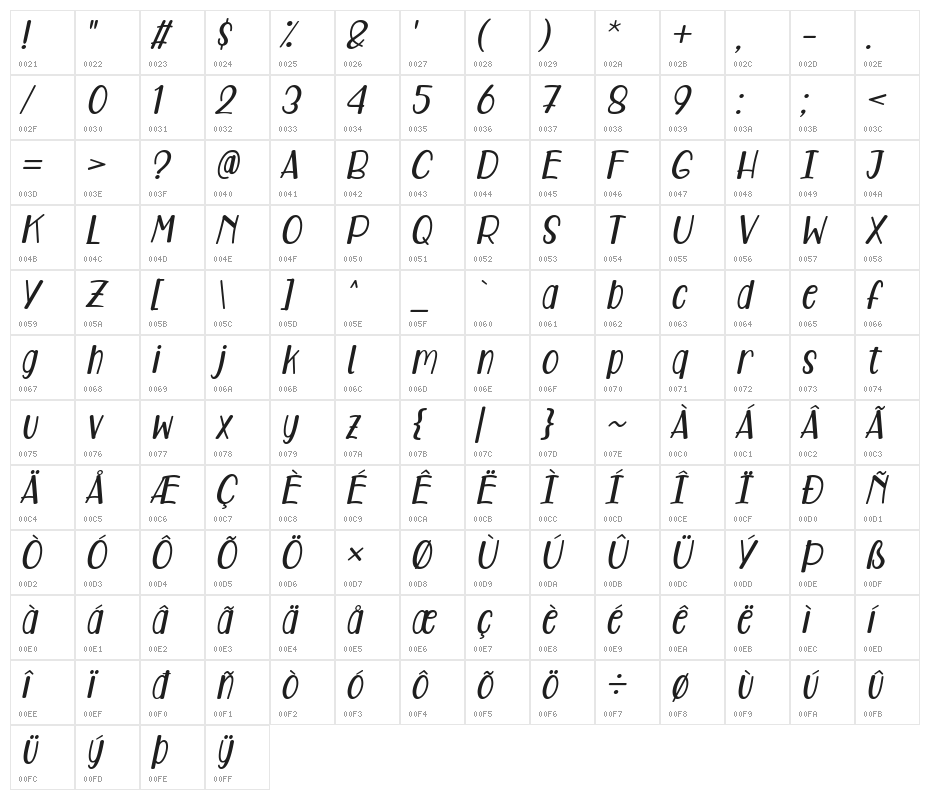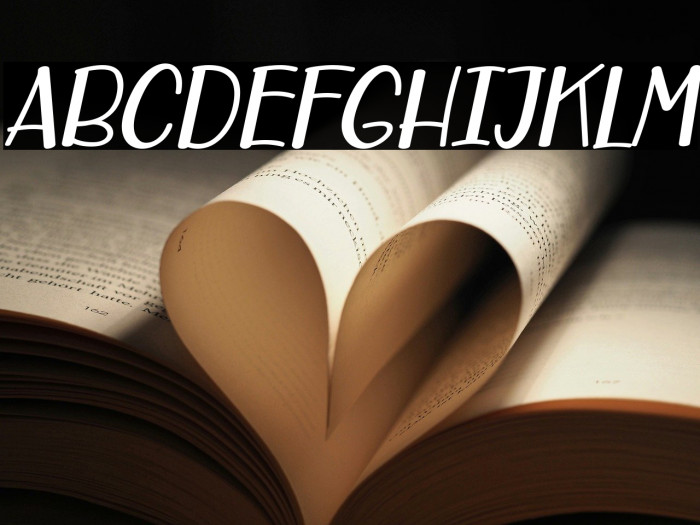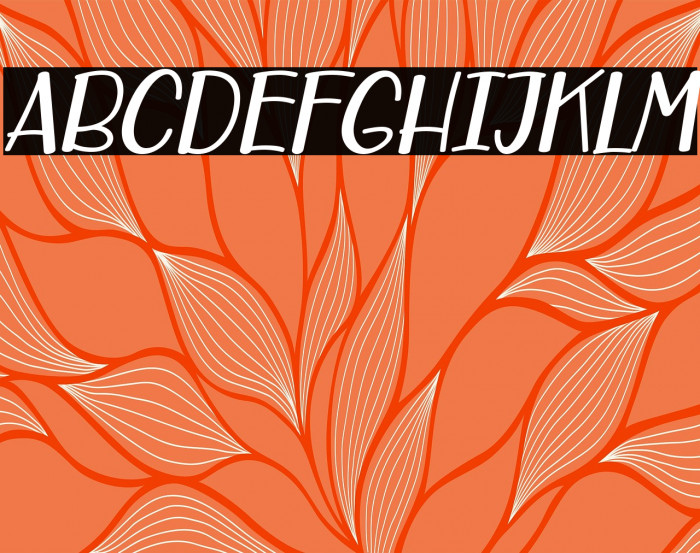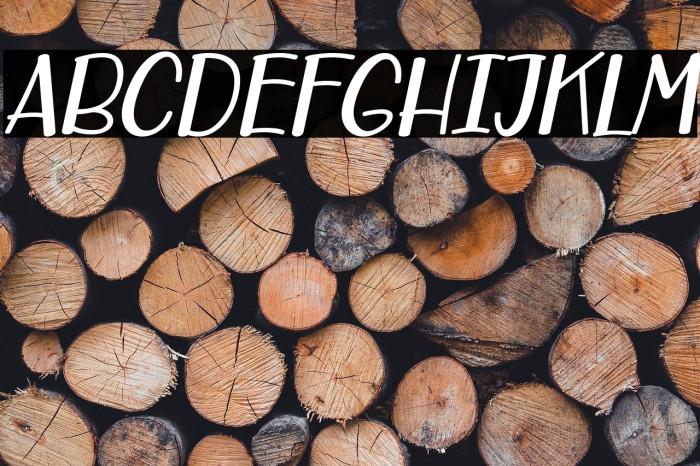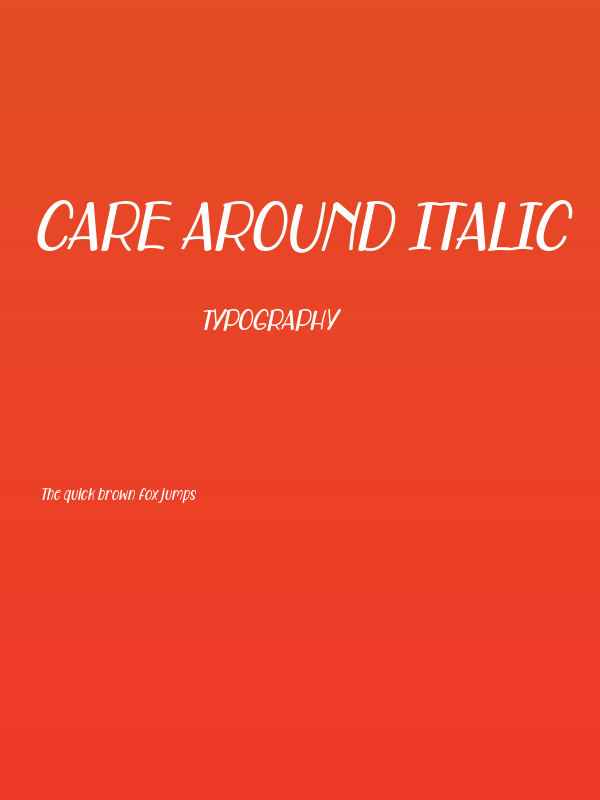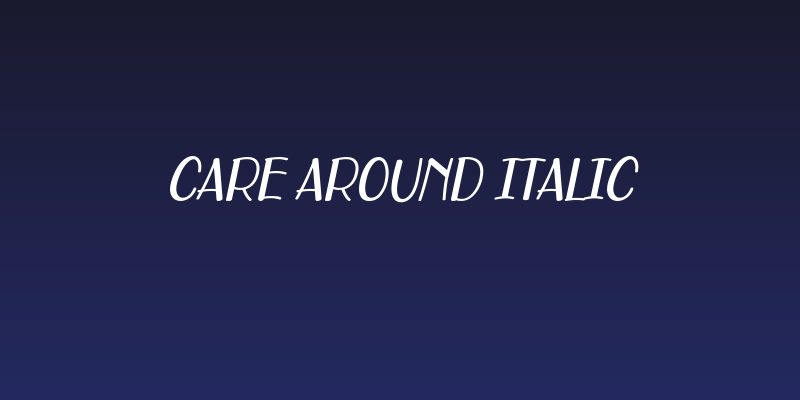
Care Around Italic Font
Care Around Italic Description
This font features a playful and dynamic style with a distinct italic slant, giving it a sense of movement and energy. The characters are slightly elongated with smooth curves and a consistent stroke width, providing a harmonious and flowing appearance. The uppercase letters are bold and prominent, while the lowercase letters maintain a friendly and approachable feel. The numerals are clear and legible, matching the overall aesthetic of the font. Special characters are well-integrated, ensuring versatility in various design contexts. The font's unique style makes it suitable for creative and informal projects.
| Proposed Projects | Ideal for greeting cards, playful branding, children's books, and creative posters. |